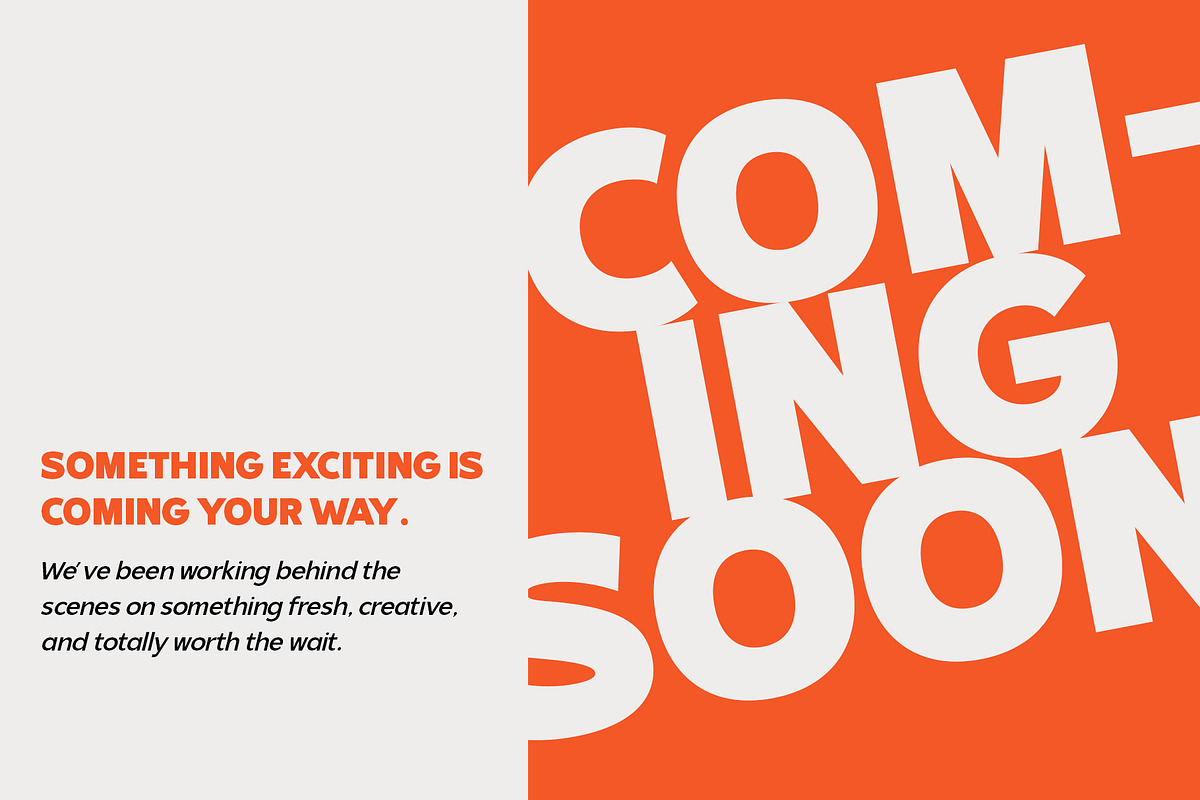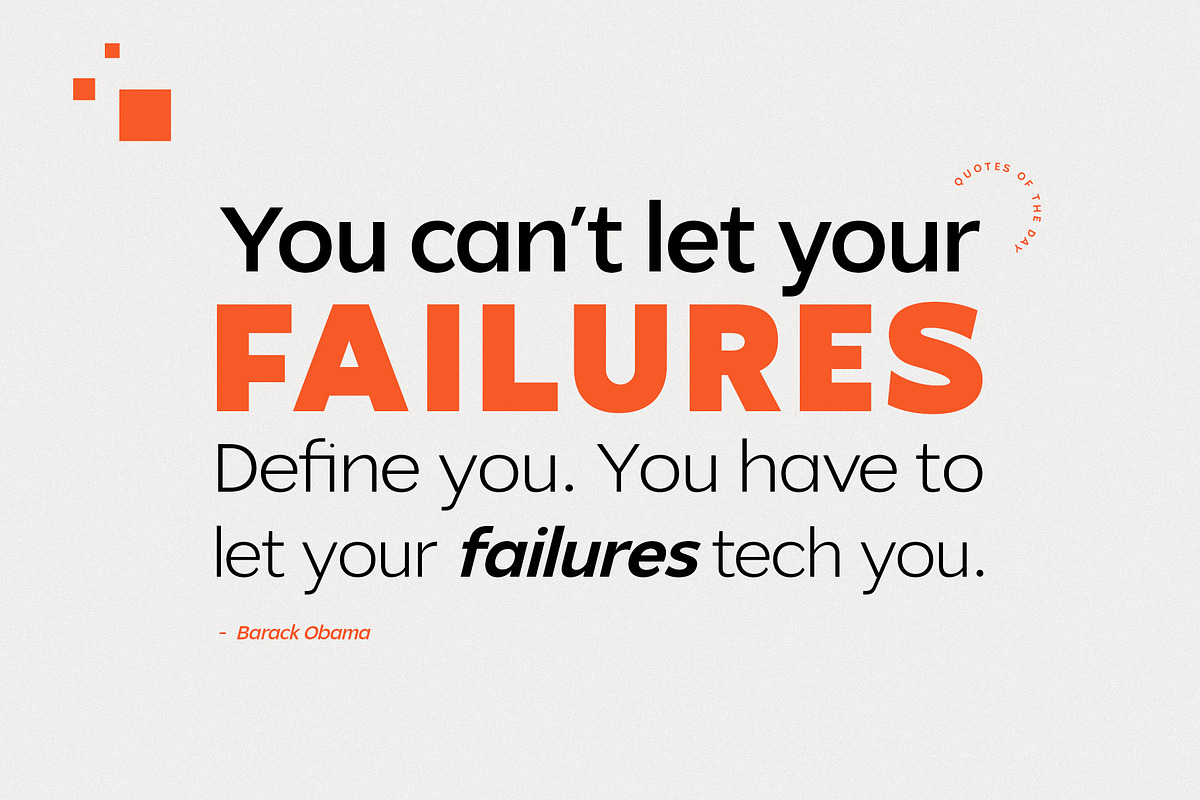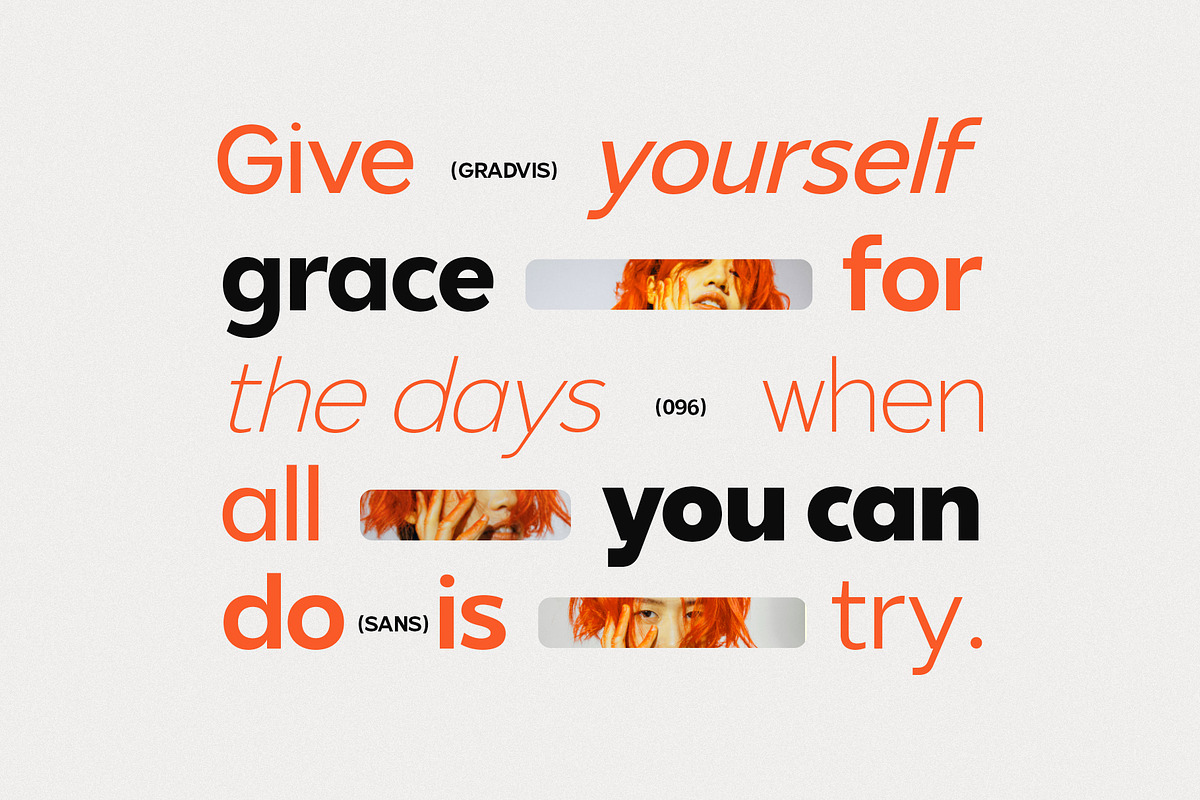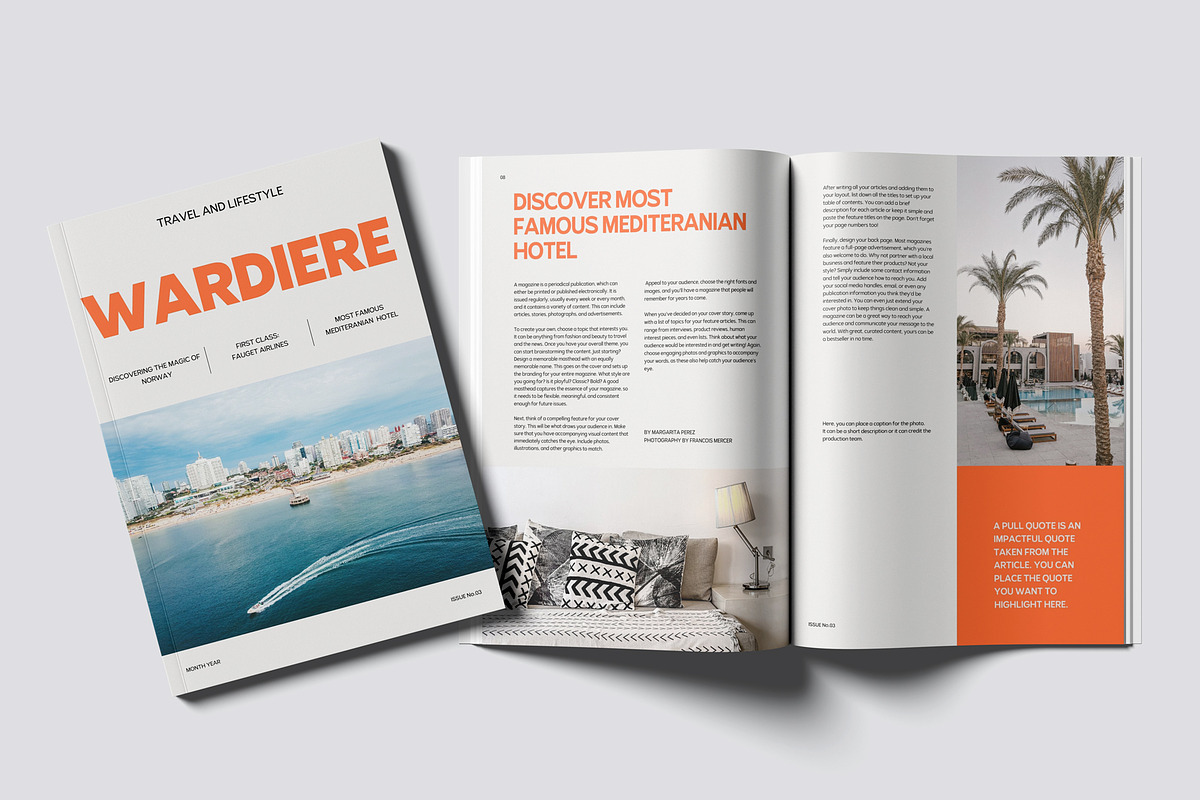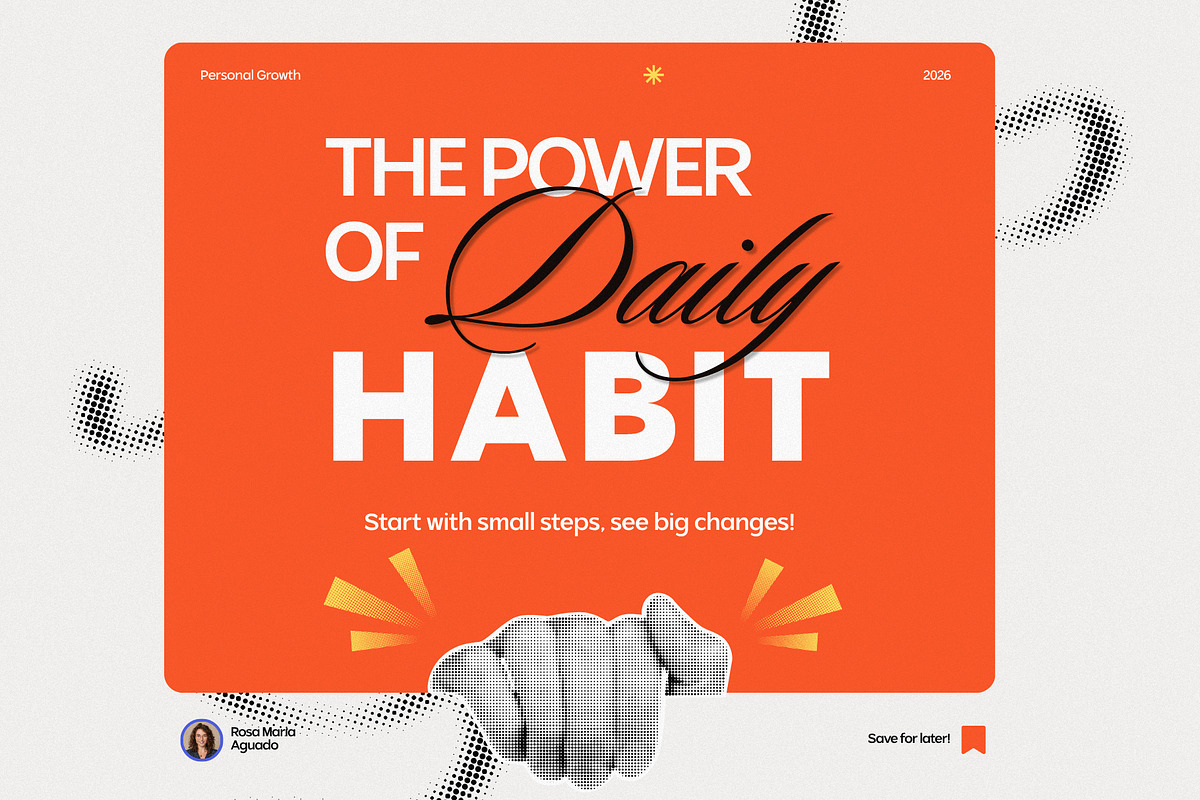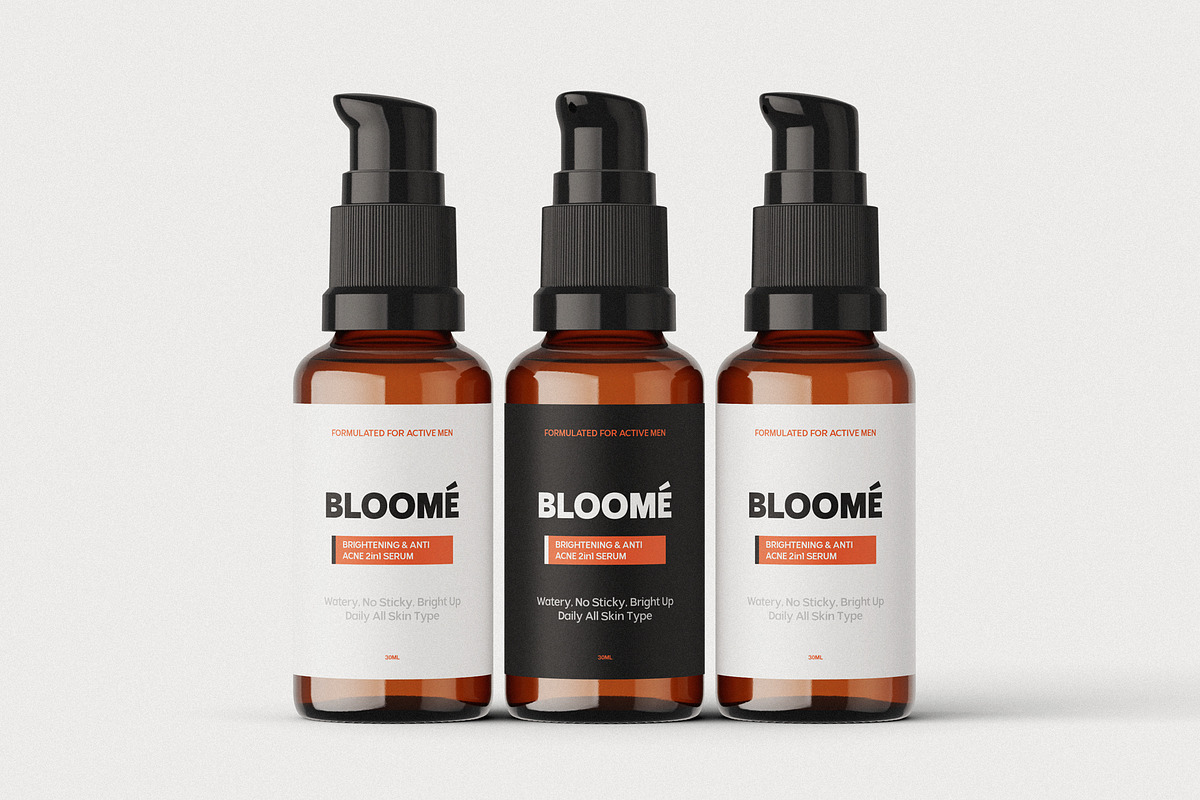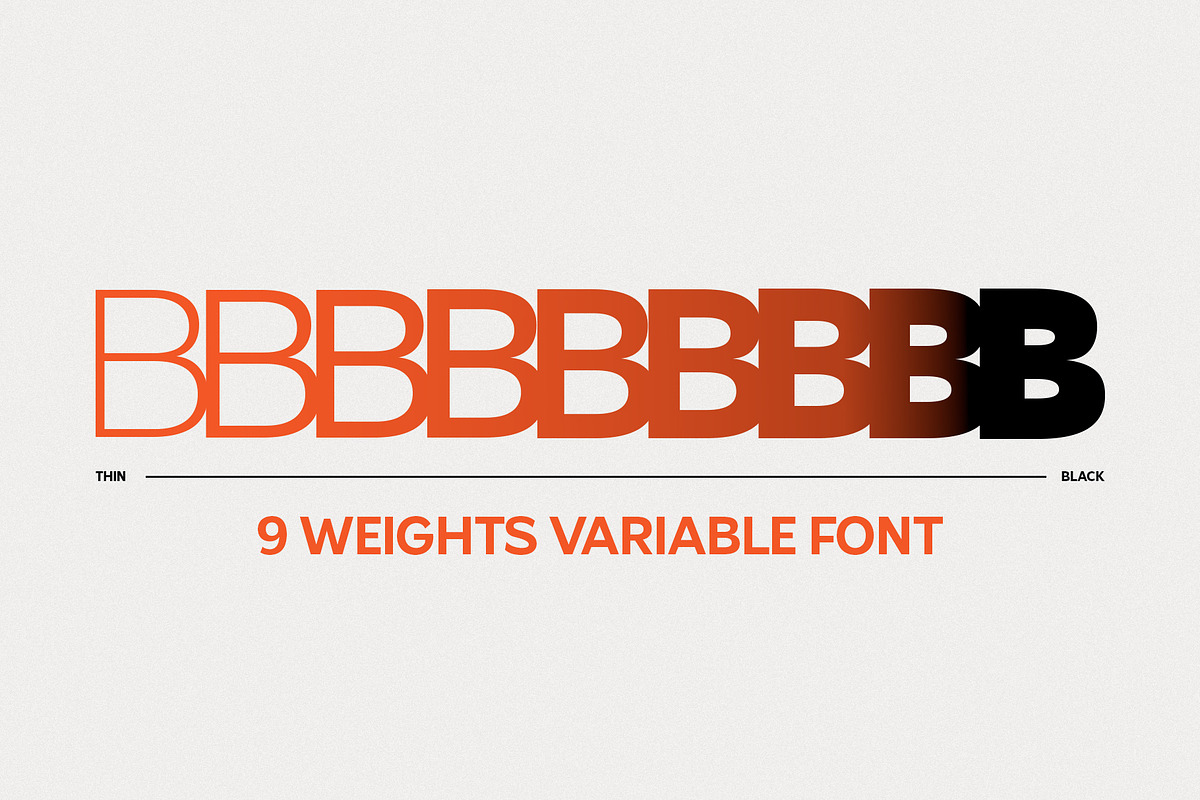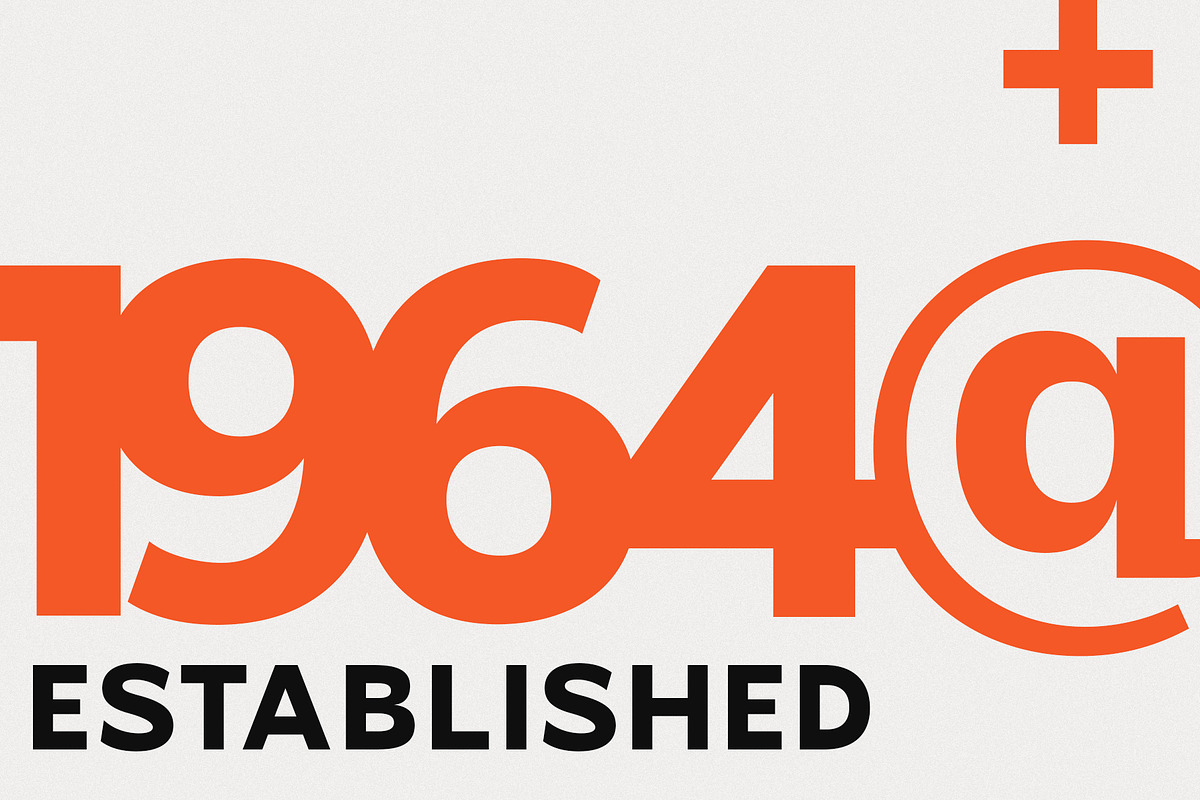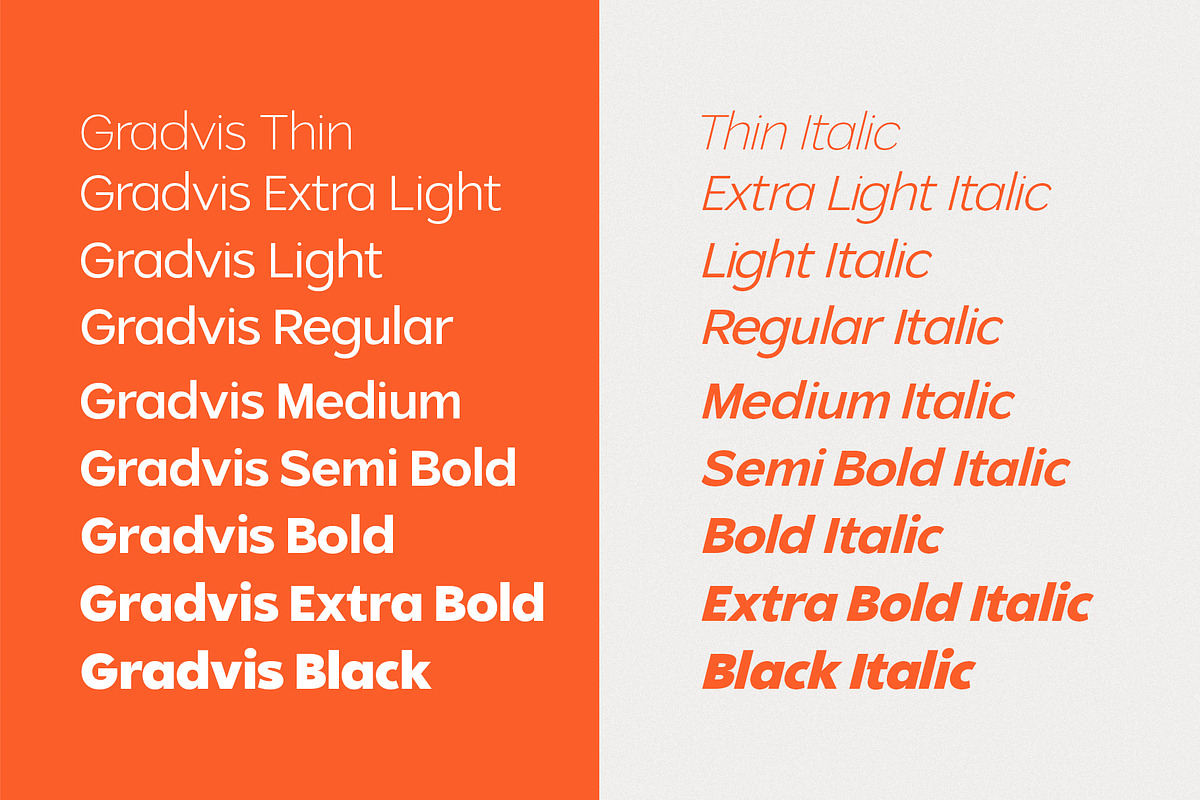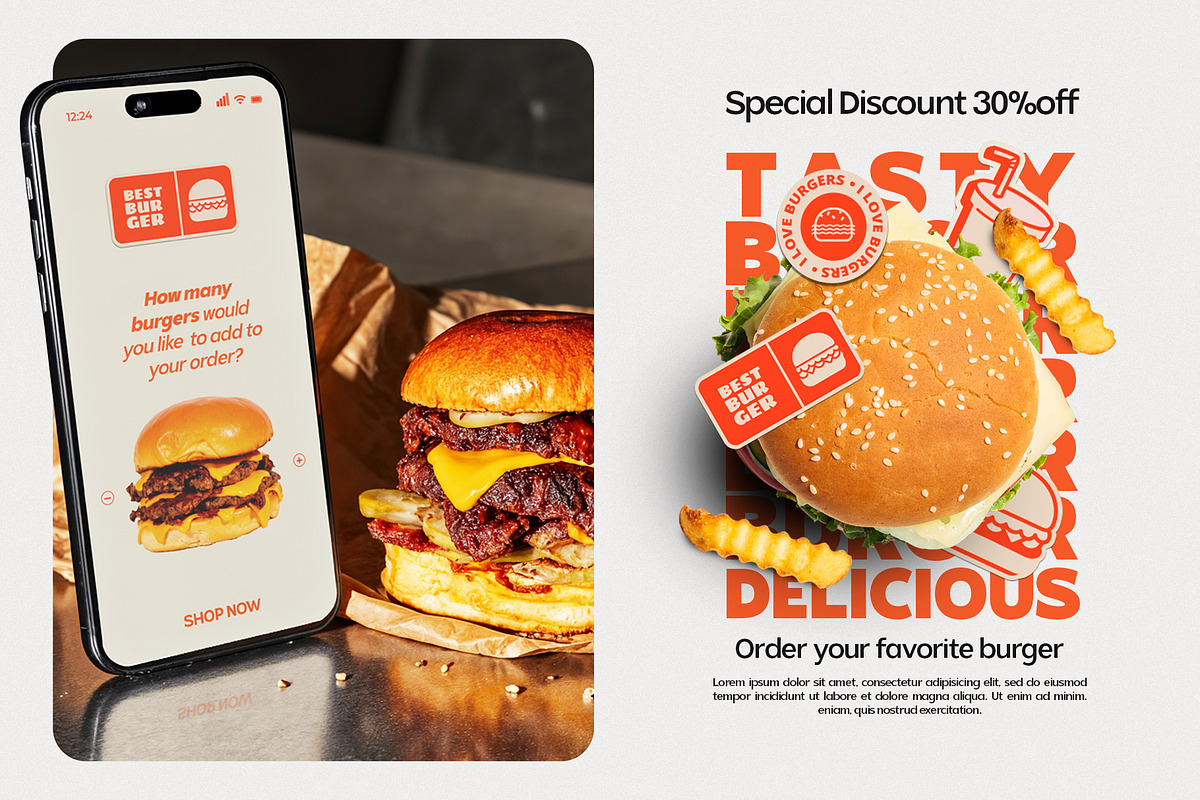
Gradvis Sans Serif Font (18 Fonts)
Gradvis Sans – Variable Weight Sans-Serif Font
Gradvis is a modern and versatile sans-serif font designed to bring clarity, flexibility, and contemporary style to any project. Built with precision and a clean geometric structure, Gradvis delivers a smooth visual flow that works perfectly across digital and print media. Its minimalist aesthetic makes it ideal for branding, editorial layouts, web design, UI/UX, packaging, and more.
This font family includes 18 styles with italic versions, offering a full range of weights from thin to bold. The variable weight system allows designers to fine-tune typography effortlessly, creating dynamic hierarchy and consistent visual rhythm. Whether you need subtle elegance or strong typographic impact, Gradvis Sans adapts seamlessly.
Each character is crafted with balanced proportions and refined spacing, ensuring excellent readability at any size. The italic styles add a touch of personality and movement, making them perfect for emphasis, headlines, or creative compositions.
Gradvis Sans is a powerful choice for designers seeking a flexible, professional, and stylish sans-serif font that performs beautifully across all creative needs.